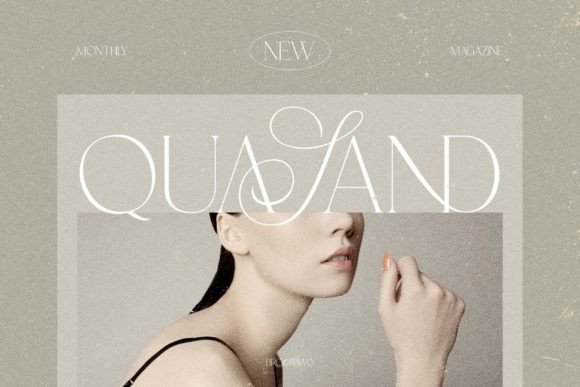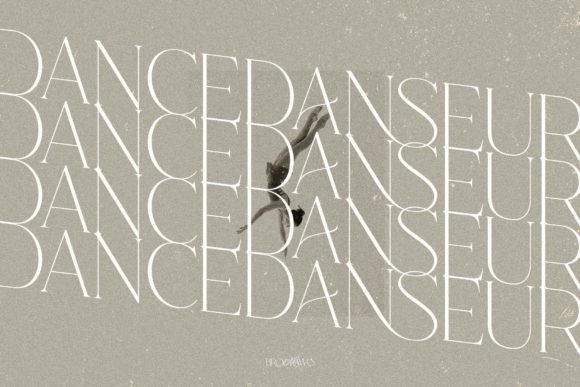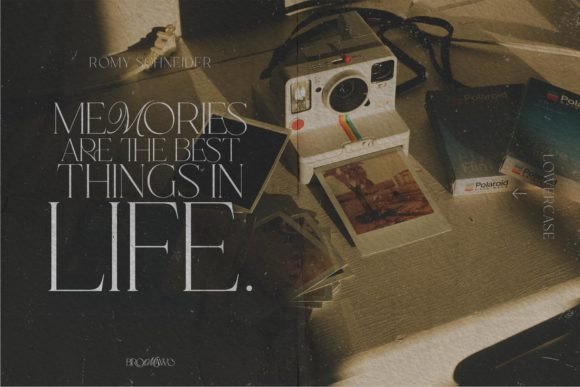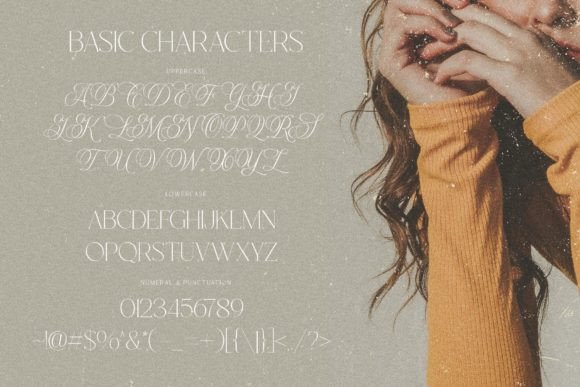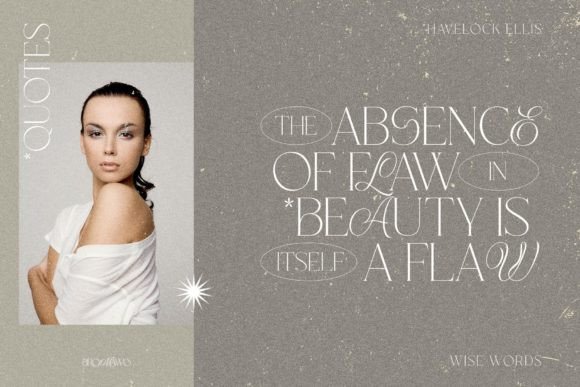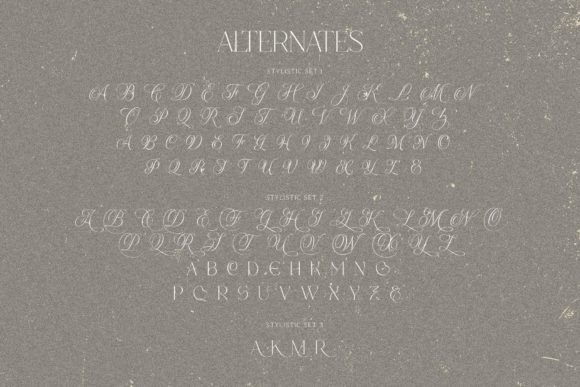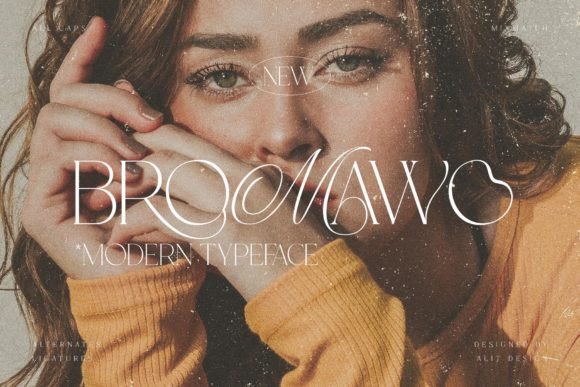
Bromawo Font: Elevate Your Designs with Elegance and Sophistication
In the world of typography, fonts play a crucial role in conveying the tone and aesthetic of a design. For designers and crafters seeking to create luxurious, elegant, and feminine projects, the Bromawo font is an exceptional choice. This sophisticated, charming display font is specifically designed to add a fashionable touch to modern, chic designs.
What Makes Bromawo Font Stand Out?
Bromawo is not just another font; it’s a design statement. Its unique characteristics make it perfectly suitable for projects that demand a high level of elegance and sophistication. Here are some features that set Bromawo apart:
- Sophisticated and Charming: Bromawo exudes a sense of luxury and refinement, making it ideal for high-end designs.
- Fashionable Touch: Its modern and chic aesthetic ensures that your designs stay current and trendy.
- Luxury and Elegant: Specifically designed for projects that require a feminine and elegant touch, such as fashion brands, beauty products, and lifestyle blogs.
- PUA Encoded: Bromawo is PUA (Private Use Area) encoded, which means you can easily access all the glyphs and swashes. This feature allows for greater flexibility and creativity in your designs.
Perfect for Modern, Chic Designs
Whether you’re working on a fashion brand, a beauty product, or a lifestyle blog, Bromawo font can help you achieve the desired look. Its versatility makes it suitable for various design projects, including:
- Fashion Brands: Use Bromawo to create stunning logos, advertisements, and marketing materials that reflect your brand’s luxury and elegance.
- Beauty Products: Elevate your product packaging, labels, and promotional materials with a touch of sophistication and charm.
- Lifestyle Blogs: Add a modern and chic touch to your blog’s branding, social media posts, and content with Bromawo’s elegant typography.
Benefits of Using Bromawo Font
By incorporating Bromawo into your design projects, you can enjoy several benefits:
- Unique Designs: With Bromawo’s extensive range of glyphs and swashes, you can create one-of-a-kind designs that stand out from the crowd.
- Time-Saving: The PUA encoding ensures easy access to all the font’s features, saving you time and effort in your design process.
- Professional Look: Bromawo’s sophisticated and elegant aesthetic helps you achieve a professional look that aligns with your brand’s image.
How to Use Bromawo Font Effectively
To make the most of Bromawo, consider the following tips:
- Pair it with Neutral Colors: Combine Bromawo with a neutral color palette to let the font be the focal point of your design.
- Experiment with Swashes: Take advantage of Bromawo’s swashes to add a creative touch to your designs.
- Use it for Headings: Bromawo is perfect for headings, titles, and captions, where its elegance and sophistication can shine.
Bromawo font is a versatile and stylish addition to any designer’s toolkit. Its sophisticated, charming, and elegant aesthetic makes it perfect for luxury, elegant, and feminine projects. With its PUA encoding and extensive range of glyphs and swashes, Bromawo offers endless creative possibilities. Whether you’re working on a fashion brand, beauty product, or lifestyle blog, Bromawo is sure to elevate your designs to the next level.